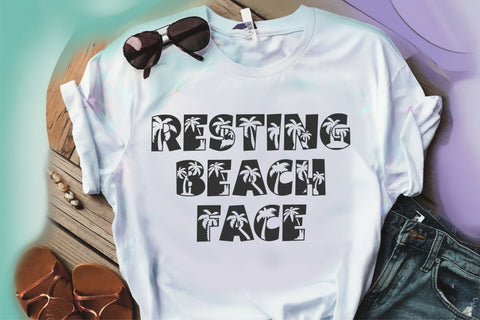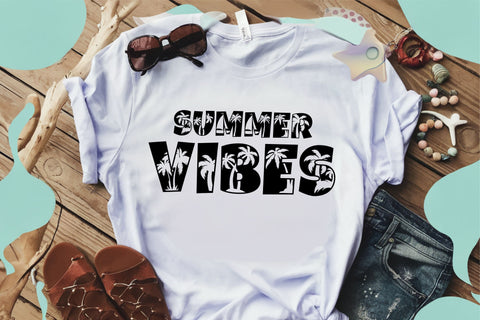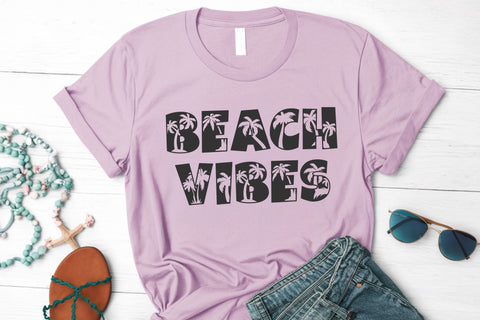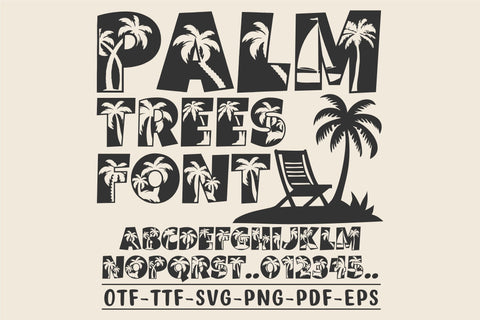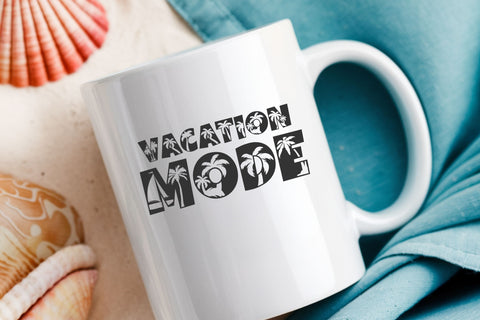
Palm Trees Font - Tropical Beach Summer Font
Bring the tropical vibes to your designs with this Palm Trees Font! π΄ This bold and playful alphabet is filled with palm tree silhouettes, making it perfect for summer, beach, and vacation-themed projects. Whether you're crafting t-shirts, mugs, invitations, wall art, signs, or party decor, this font will add a relaxed island feel to your work. Compatible with Cricut & Silhouette, this decorative display font is a must-have for your next creative project!